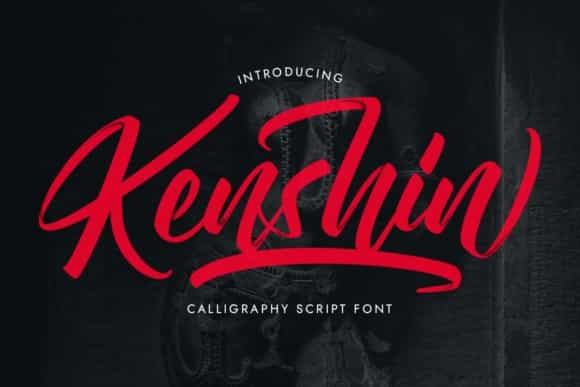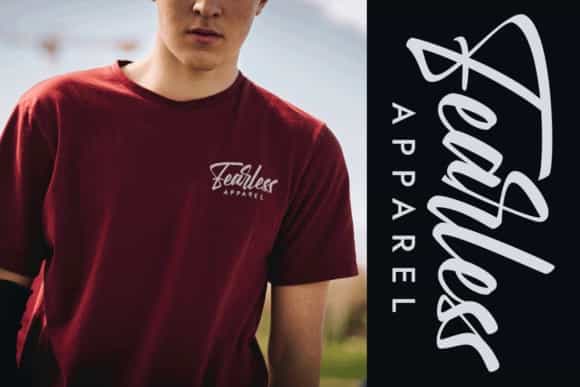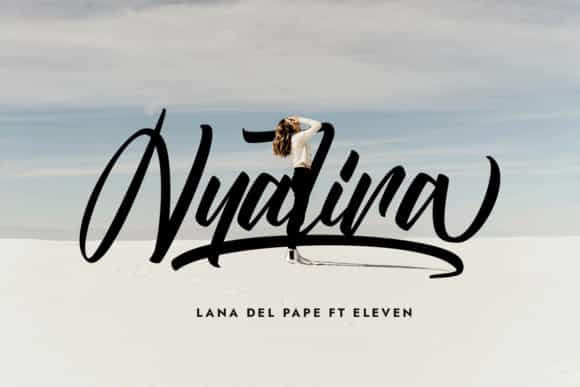
Kenshin Font is a Modern and Classy style handwritten script, which makes this font perfect for projects like watermark for photo, wedding, event, invitation, escort card table number header menus editorial display logos slider blog social media custom address stamps packaging greeting cards etc.